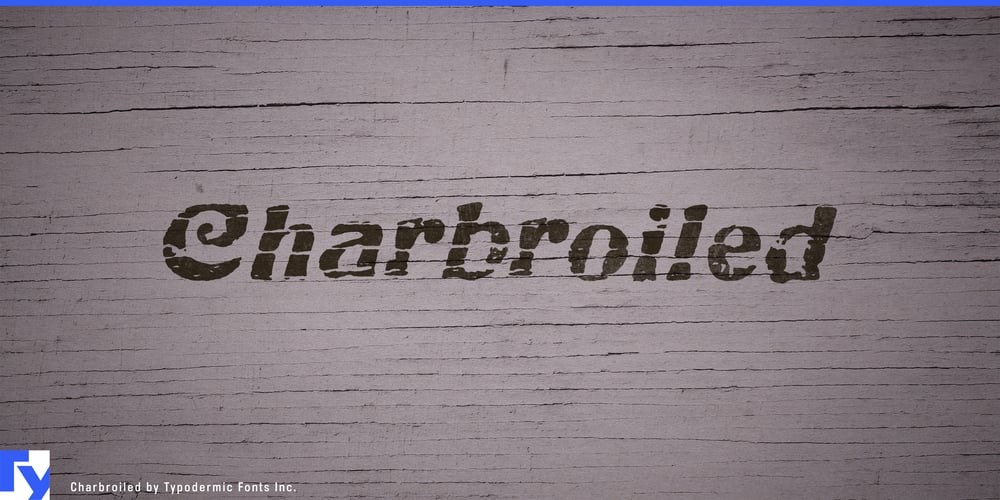
Charbroiled Font Family was designed by Ray Larabie and published by Typodermic. Charbroiled contains 1 styles and family package options. Ignite your designs with Charbroiled, a typeface that sizzles with rustic charm and timeless appeal. Inspired by the classic American Italic from 1902, this scorched and antiqued font brings a dash of vintage flair to the modern designer’s palette. Charbroiled doesn’t just type—it storytells, evoking the warmth of summer gatherings and the irresistible aroma of outdoor cooking.With its bold strokes and weathered edges, Charbroiled captures the essence of flame-kissed perfection. Each character bears the mark of craftsmanship, as if carved by the elements themselves. But Charbroiled’s authenticity goes beyond mere appearance—OpenType-aware applications unlock custom letter pairings that are seamlessly swapped, creating a genuinely organic flow that mimics the natural variations found in hand-painted signage.This versatile typeface speaks the language of conviviality across cultures. From bustling Parisian bistros to laid-back Californian food trucks, Charbroiled adapts effortlessly to a vast array of Latin-based writing systems. It’s equally at home on a Lisbon beach bar menu as it is on a Berlin street food festival poster, ensuring your message retains its savory appeal from the Mediterranean to the Baltic. It’s the typeface of choice for designers who want to infuse their work with the warmth of a summer evening, the camaraderie of shared meals, and the joy of outdoor living. Whether you’re crafting invitations for a neighborhood cookout, designing labels for artisanal hot sauces, or branding the next big plant-based burger chain, Charbroiled adds that perfect touch of rustic authenticity.So stoke the creative fires and let Charbroiled work its magic. Watch as your designs come alive with the spirit of outdoor gatherings and culinary adventure. In a world of sleek and polished typefaces, Charbroiled stands out—bold, distinctive, and unapologetically full of character. Embrace the flame-grilled aesthetic, and let your typography speak volumes. With Charbroiled, your message won’t just be read—it’ll be savored.